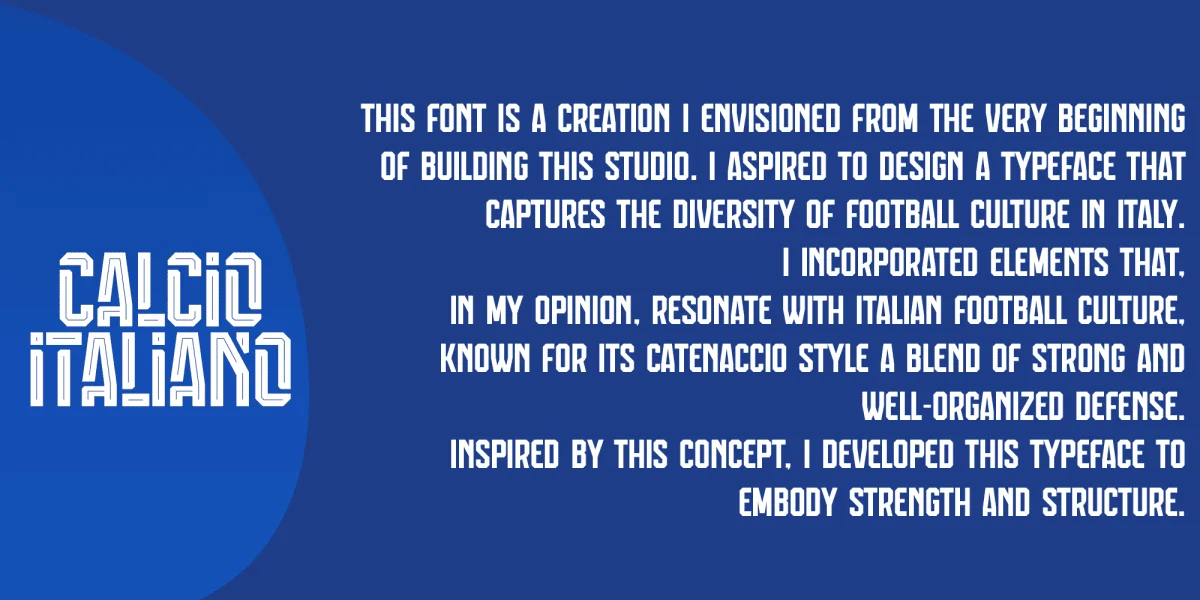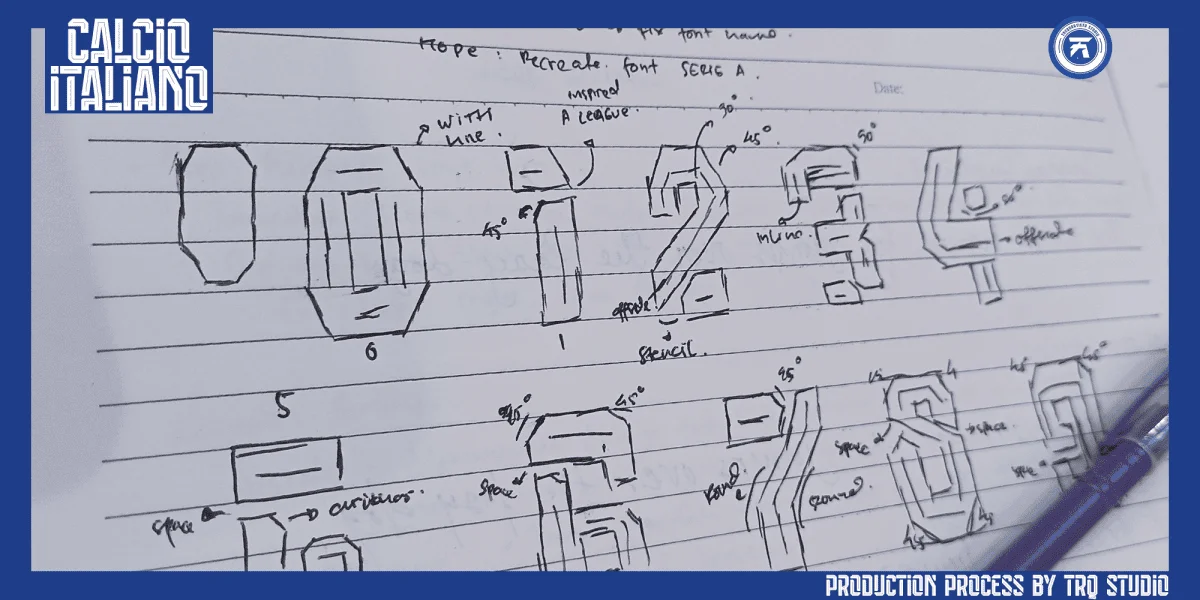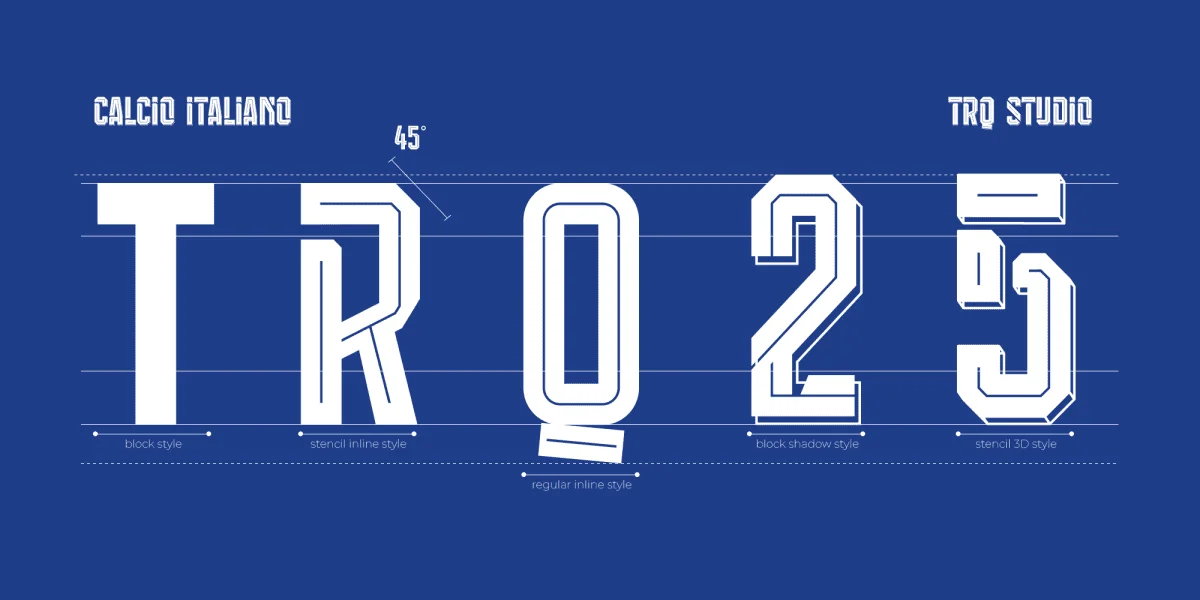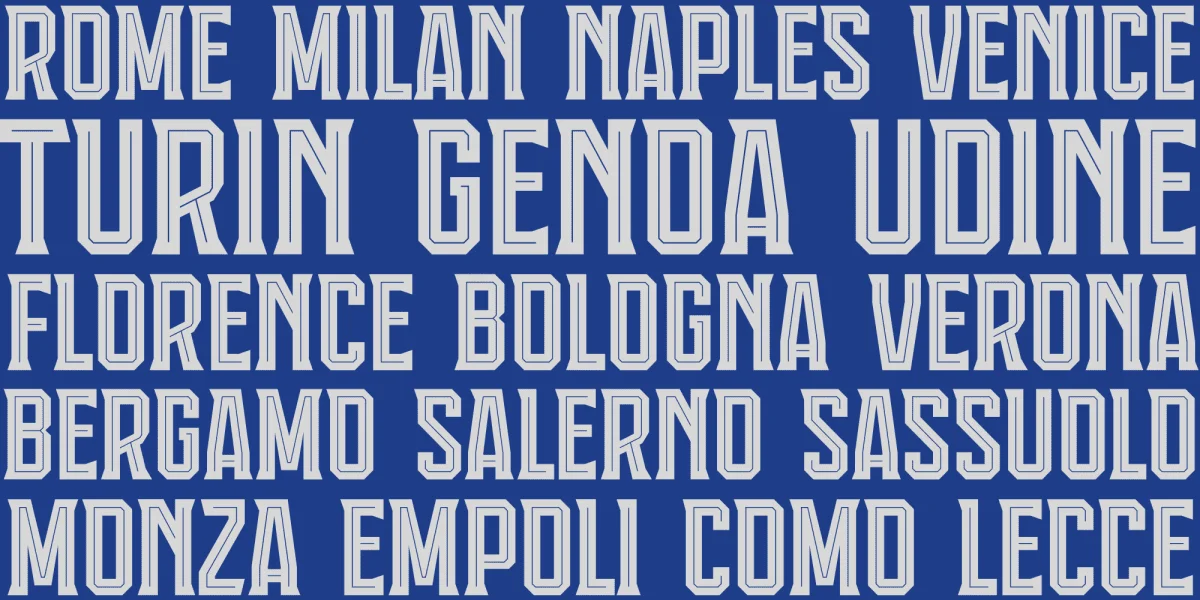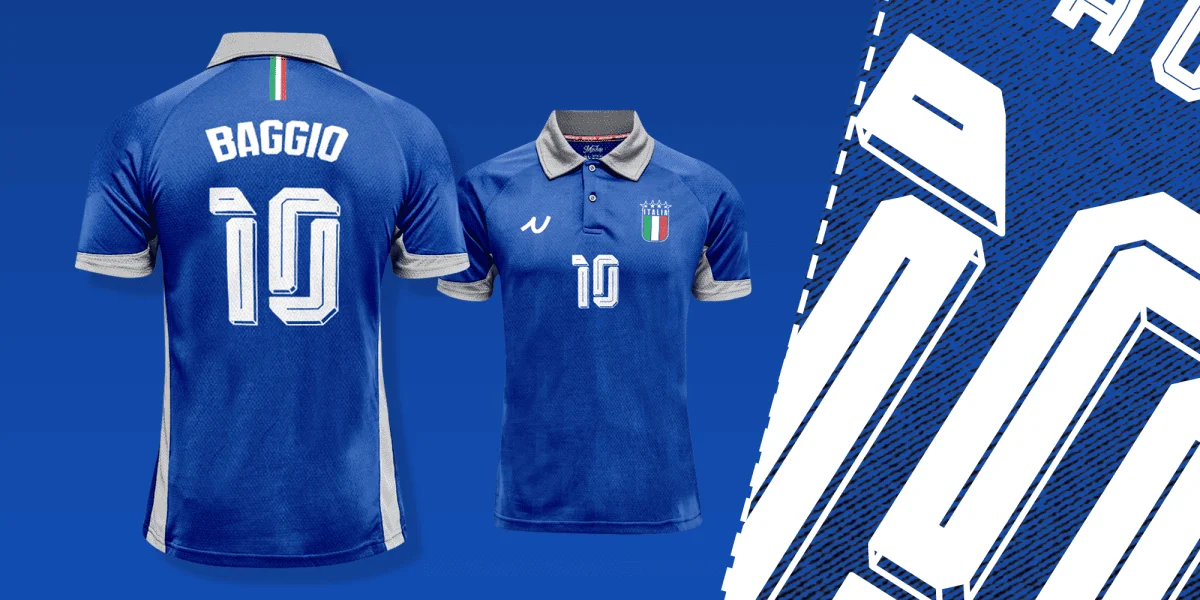
Calcio Italiano a condensed sport .
This font is a creation I envisioned from the very beginning of building this studio. I aspired to design a typeface that captures the diversity of football culture in Italy.
I incorporated elements that, in my opinion, resonate with Italian football culture, known for its Catenaccio style a blend of strong and well-organized defense. Inspired by this concept, I developed this typeface to embody strength and structure.